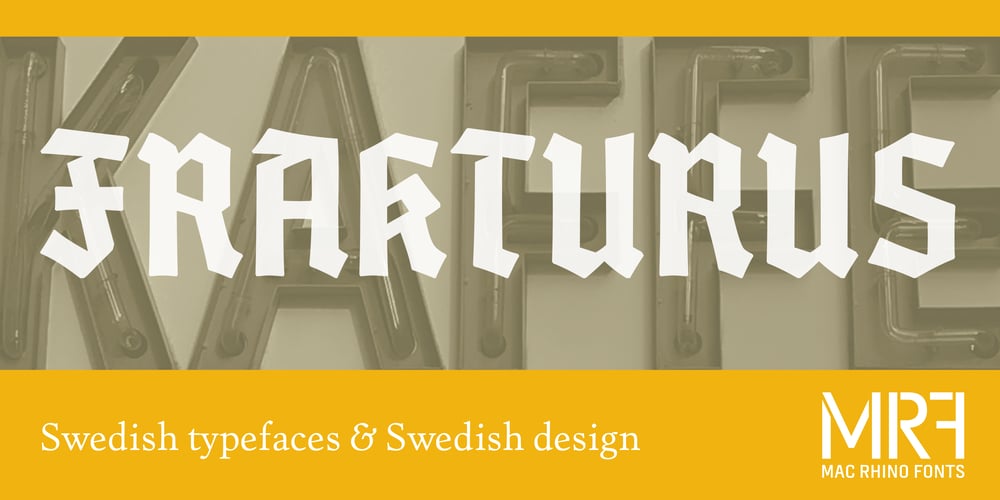
Frakturus
Frakturus font
Frakturus Font Family was designed by Stefan Hattenbach and published by MAC Rhino Fonts. Frakturus contains 1 styles and family package options. A modern fraktur briefly based on the typeface Deutschmeister originally designed by Berthold Wolpe in 1934. With a lot of blackness and playful style it is well suited for posters, signage on windows or a book cover.Only one wight for now, but it may be expanded in the future.